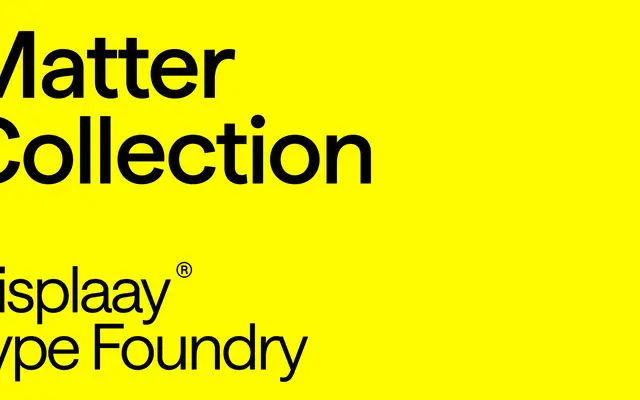
A systematic geometric sans in six families across three spacing variants and two x-heights, totalling 96 styles with a four-axis variable font.
Matter is structured around a matrix of decisions: proportional, semi-mono or mono spacing, paired with a standard or extra-large x-height, producing six discrete families at eight weights each with italics throughout. The variable font exposes four axes — weight, slant, mono and x-height — allowing continuous interpolation across the entire system. The Latin, Cyrillic and Greek coverage, combined with the mono variant, makes it as suited to interface and code contexts as to editorial and branding work.
Matter is a geometric sans-serif with three spacing variants — proportional, semi-mono and mono — and two x-height options, placing it firmly in the geometric sans tradition with functional, systematic design logic.